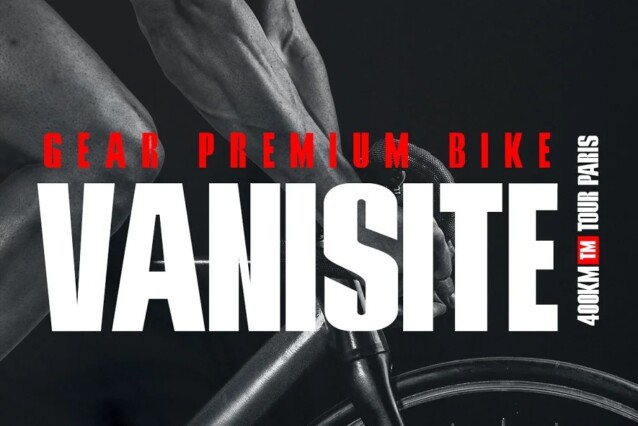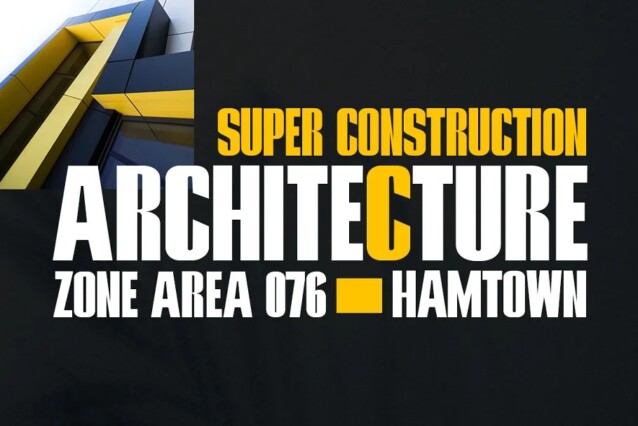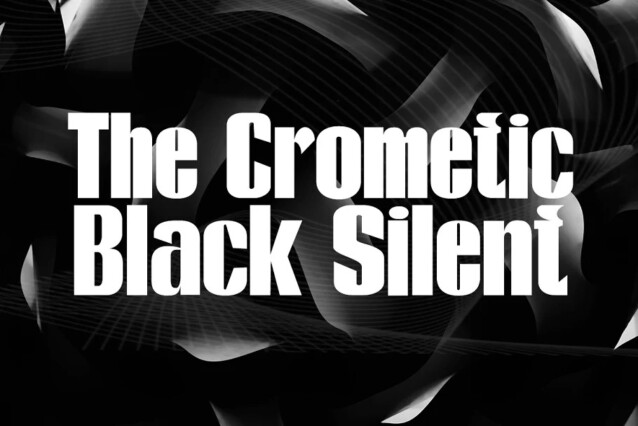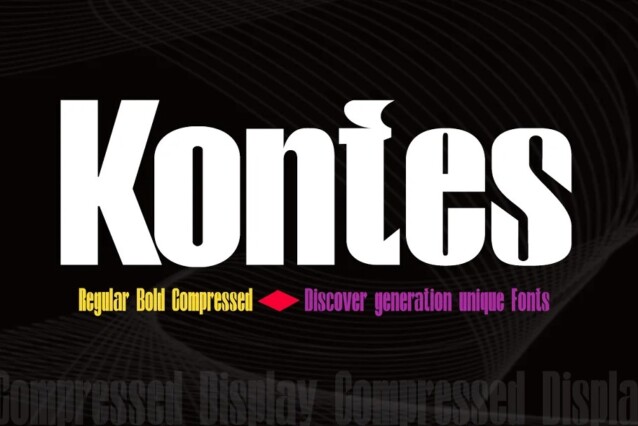
Kontes Font
Kontes Font is a stylish sans-serif typeface that embodies the essence of display fonts with a clean, modern aesthetic. The classic style is very suitable to be applied in various formal forms such as invitations, labels, menus, logos, fashion, make up, stationery, letterpress, romantic novels, magazines, books, greeting/wedding cards, packaging, labels.